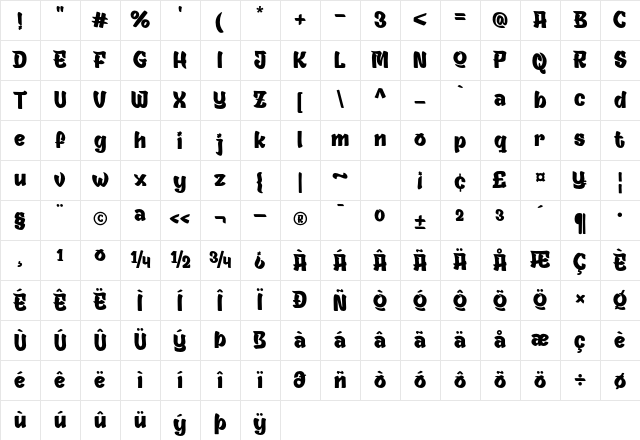
RAYOH TRIAL Regular
Foundry: productype
Designer: Rozi
Design Context for RAYOH TRIAL
RAYOH TRIAL is a composed and adaptable typeface that performs quietly and consistently across a wide range of design contexts.